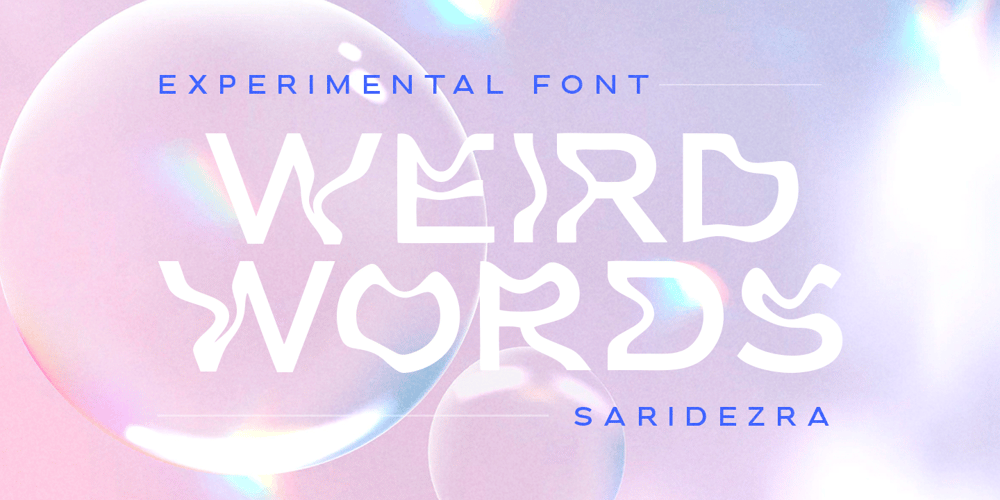
Weird Words Font Family was designed by Sarid Ezra and published by Sarid Ezra. Weird Words contains 1 styles and family package options. Weird Words is a weird and trendy font based sans that have unique looks. This font contains uppercase and lowercase that have different form. You can use the lowercase and uppercase in the same word that will make your text more stand out! You can use this font for the social media post, poster, and suitable for headline. This font also support multi language.